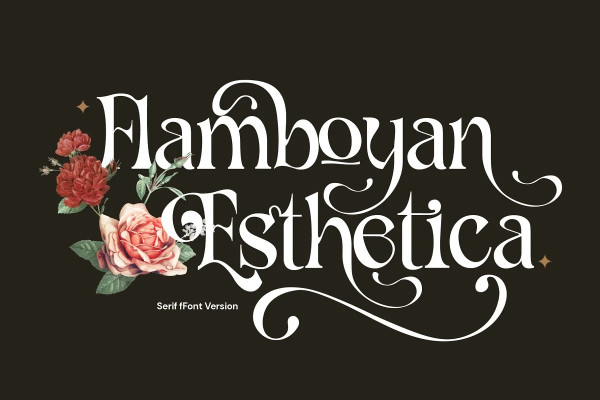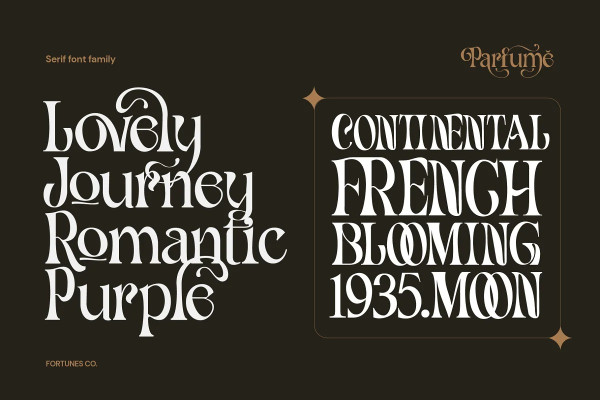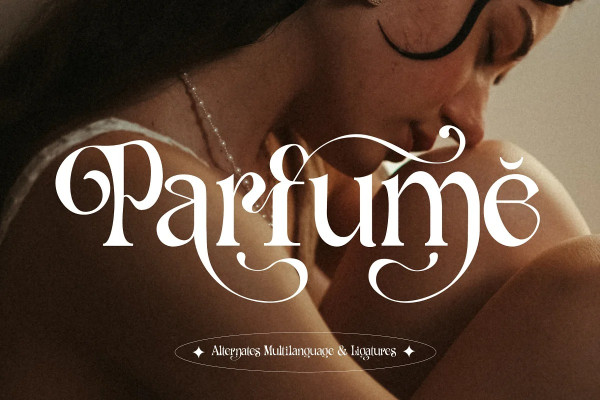
Parfume Font
Parfume Font – Modern serif fonts are a contemporary twist on traditional serif typefaces, striking a perfect balance between classic elegance and modern aesthetics. Combining clean lines with refined serifs, they exude a sophisticated and professional vibe, making them a popular choice for digital and print media alike. Their versatility enables them to work well in both body text and headlines, ensuring readability and visual appeal across various platforms.
Modern serifs often showcase a higher contrast between thick and thin strokes, elevating legibility while preserving their distinctive character. Embraced by designers for their timeless charm with a contemporary edge, modern serif fonts continue to shape the visual language of our digital era.